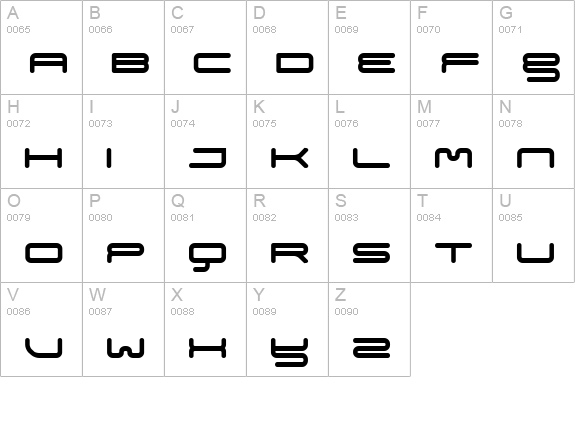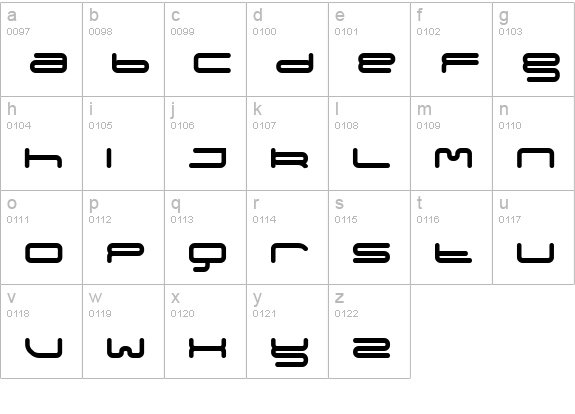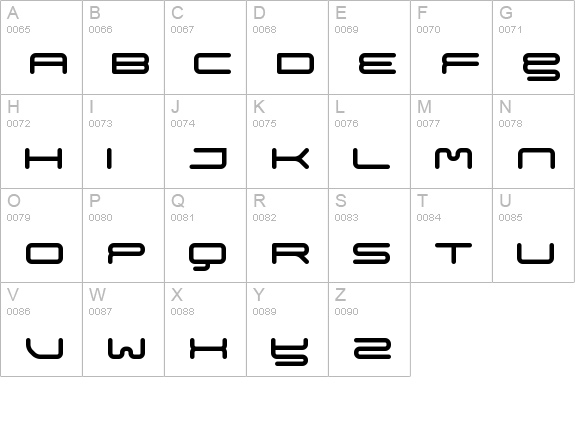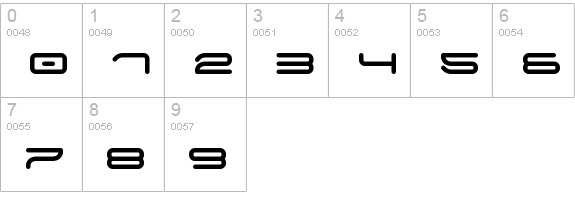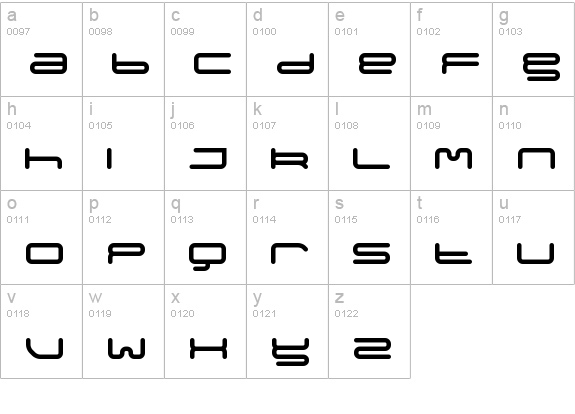
The Meganormal font is a versatile and modern typeface that effortlessly blends elegance with simplicity. With its clean lines and timeless appeal, Meganormal is the perfect choice for a wide range of design projects, from branding to editorial layouts. This font exudes a sense of sophistication and professionalism, making it ideal for both digital and print applications. What sets Meganormal apart is not only its stylish design, but also the fact that it is available for free download at FontsMarket.com. This means that you can easily access this high-quality font without any cost, making it a valuable addition to your font library. Whether you're a seasoned designer or just starting out, Meganormal offers endless possibilities for creative expression. Elevate your designs with Meganormal and make a lasting impression on your audience.